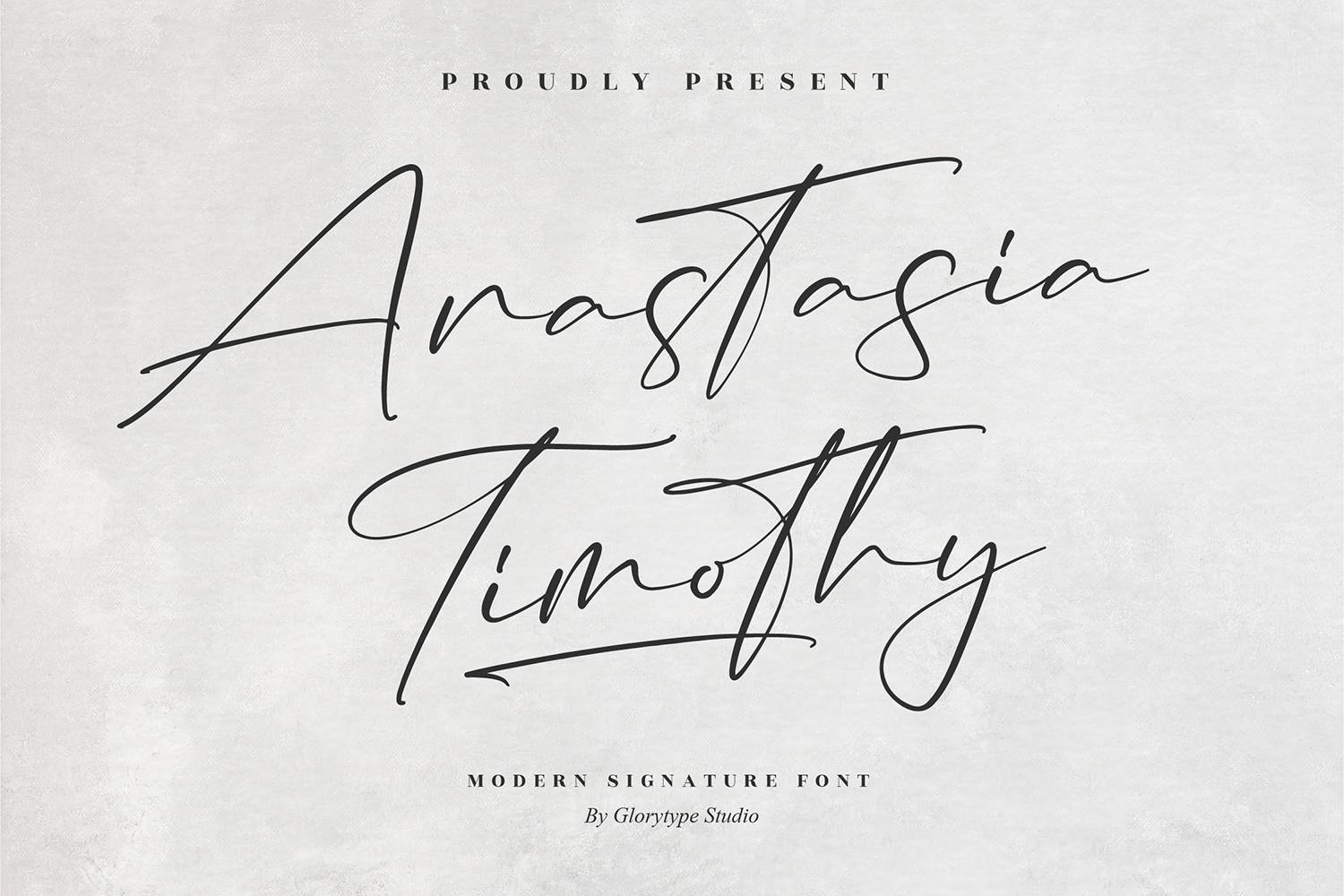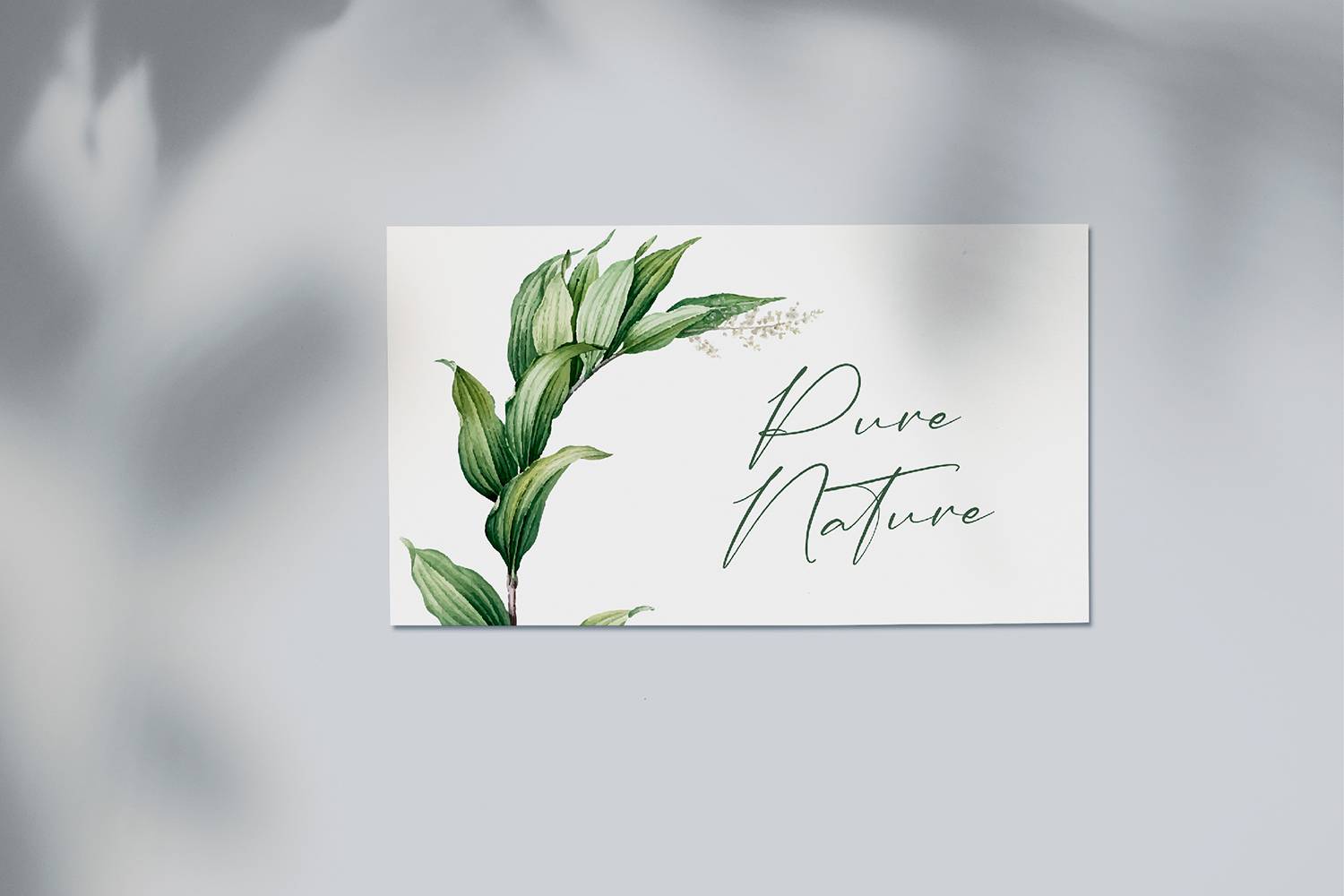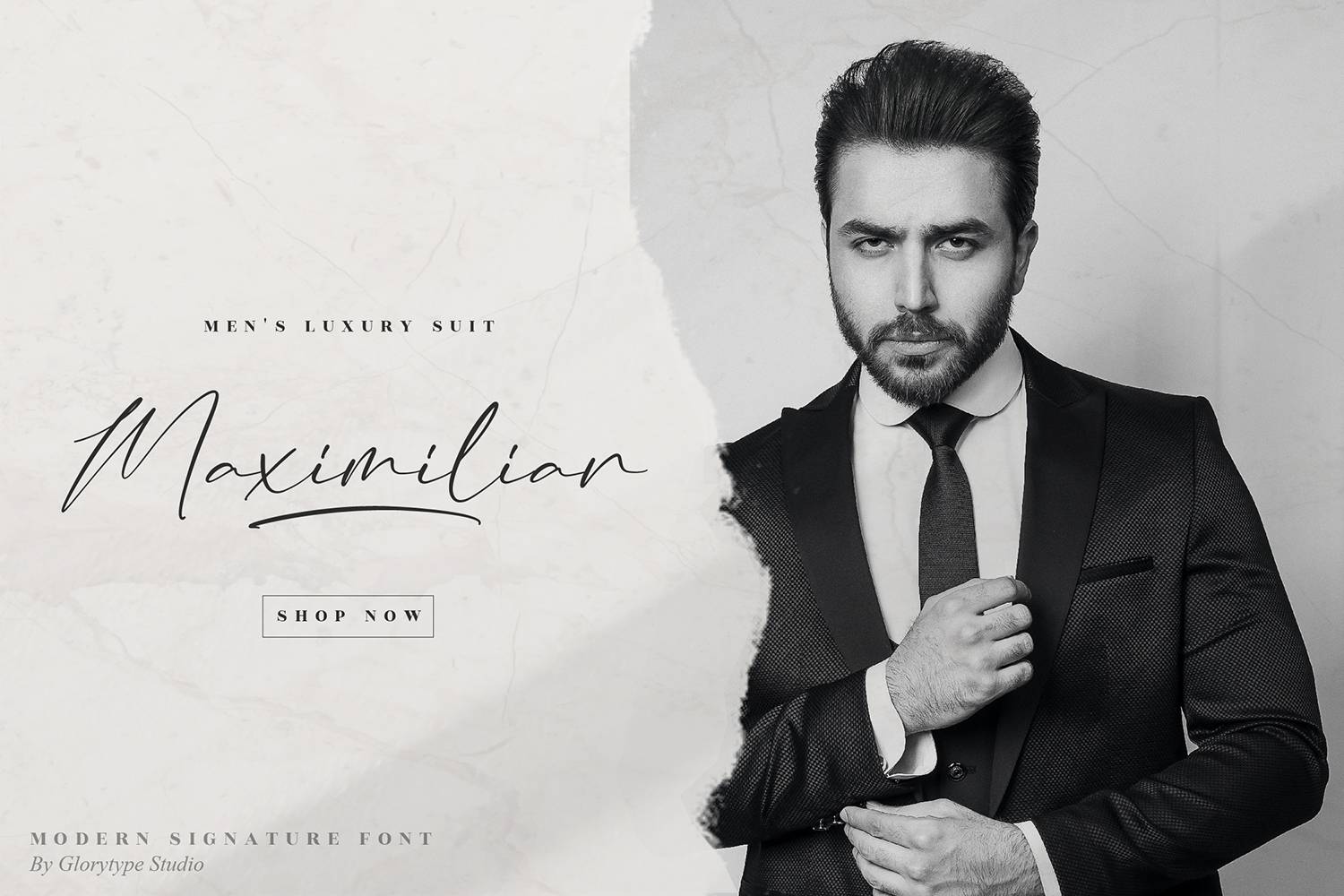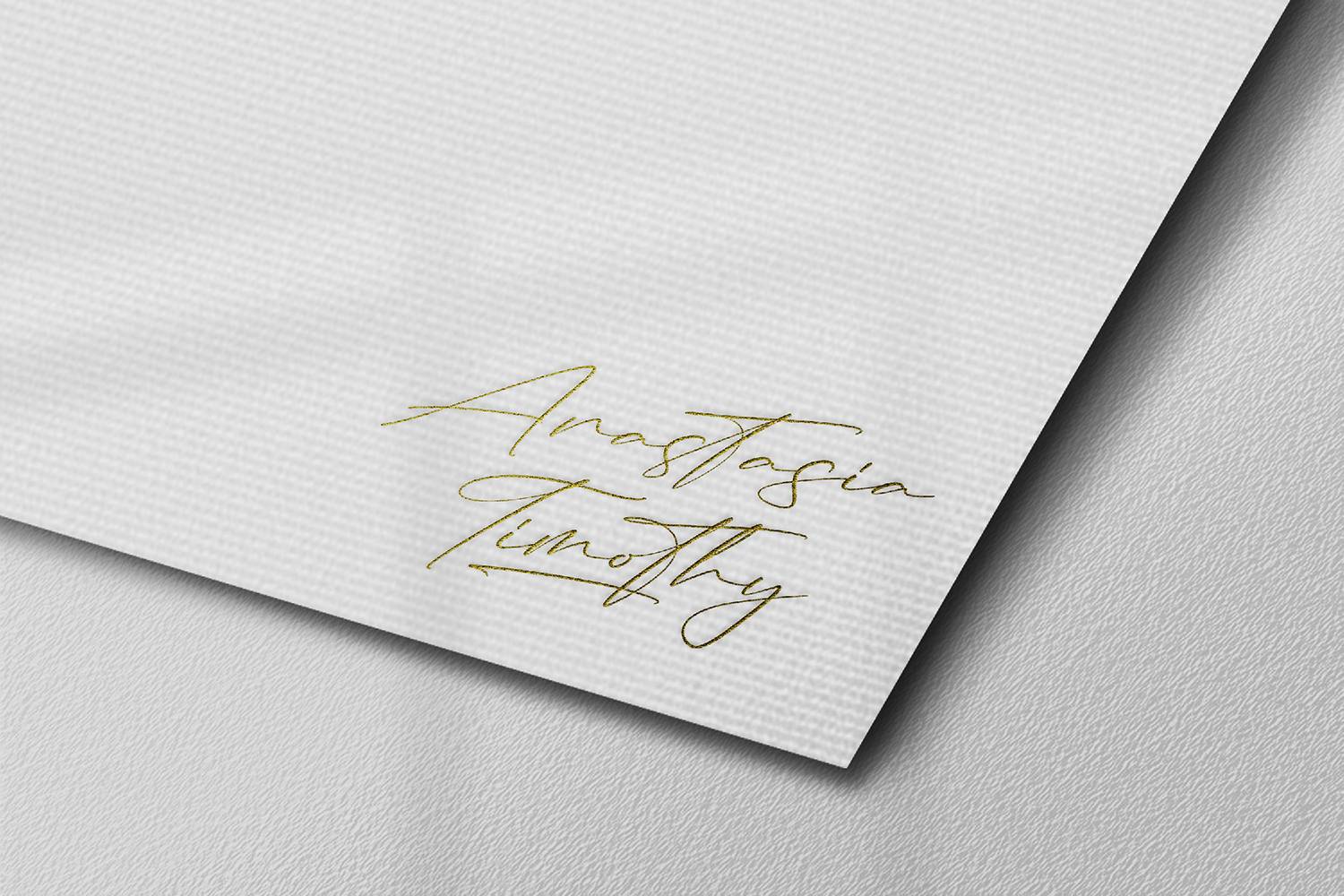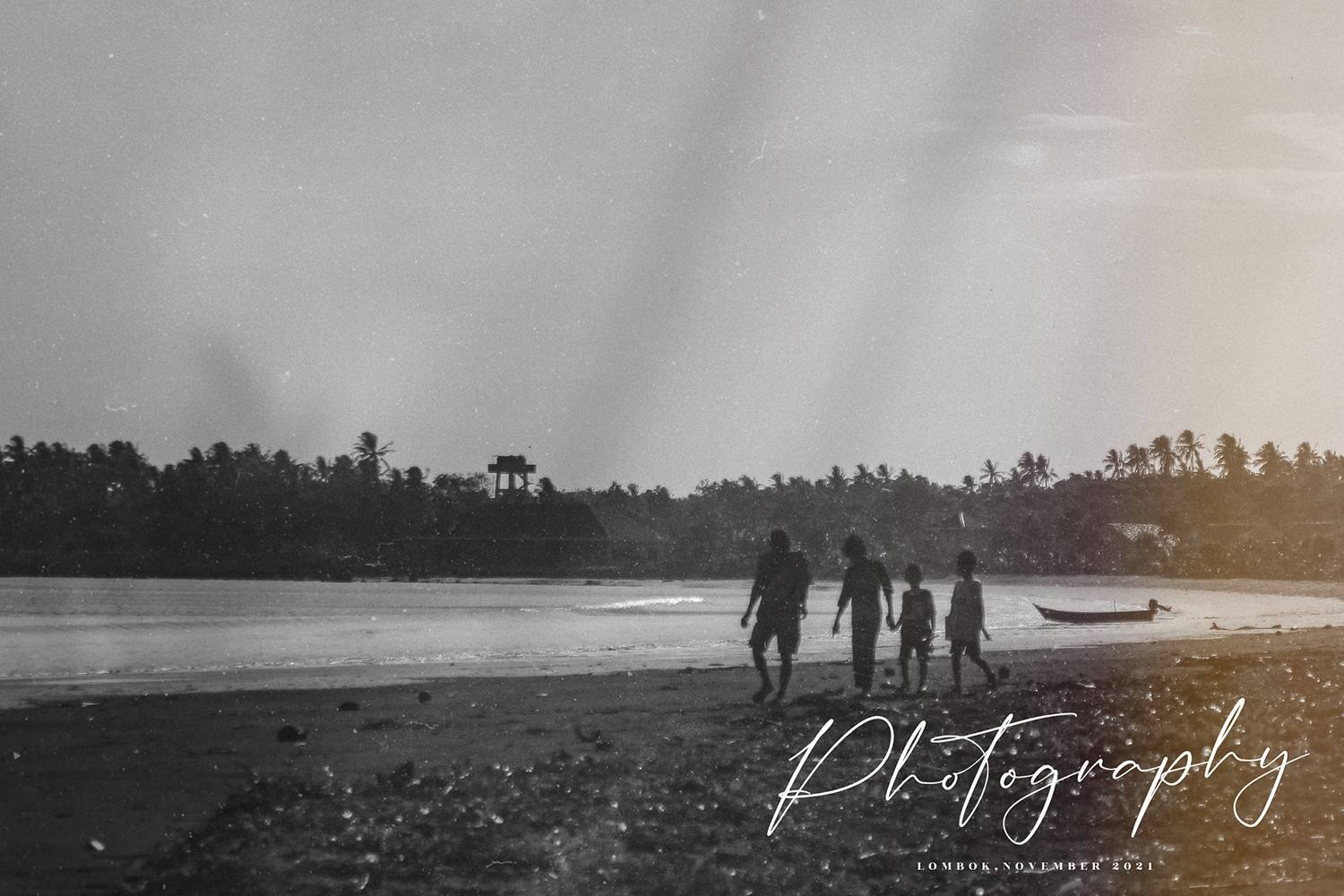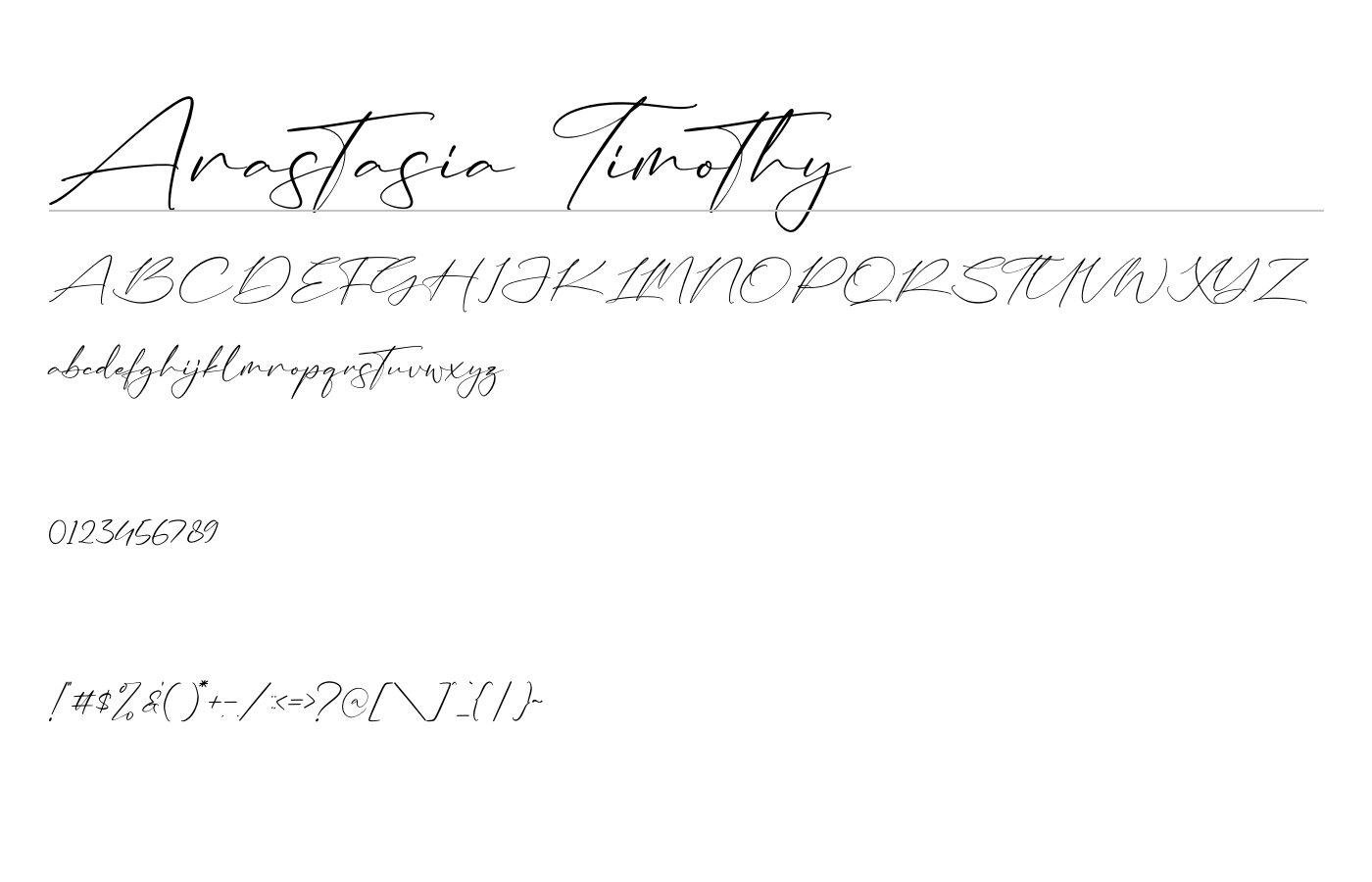
Anastasia Timothy is a delicate and elegant script font featuring slender, flowing strokes that evoke a handwritten, calligraphic style. Its light weight and graceful, slightly irregular letterforms give it a refined yet personal feel, making it ideal for stylish branding, invitations, and sophisticated editorial design. This font works beautifully where a touch of elegance and a modern, artistic flair are desired.
Anastasia Timothy Font
About Anastasia Timothy Font